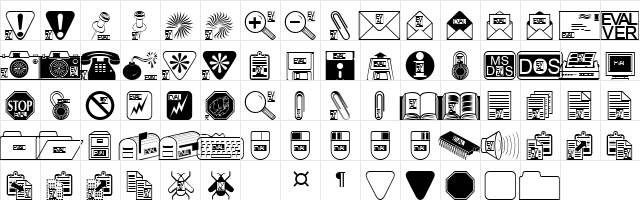
spIcons Normal
Design Context for spIcons Typeface
spIcons is a composed and adaptable typeface that performs quietly and consistently across a wide range of design contexts.